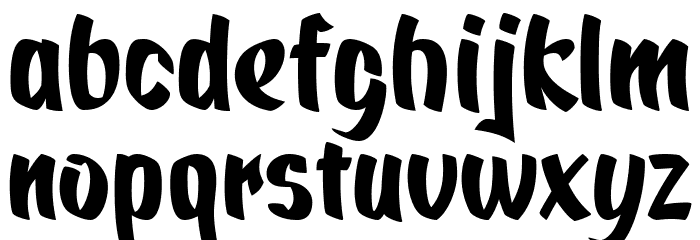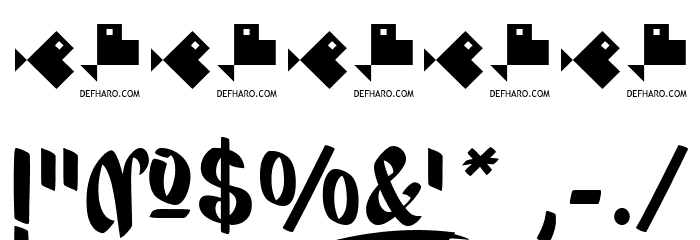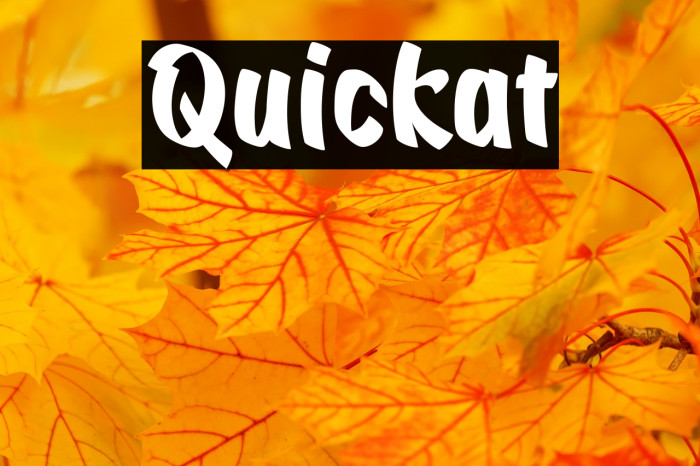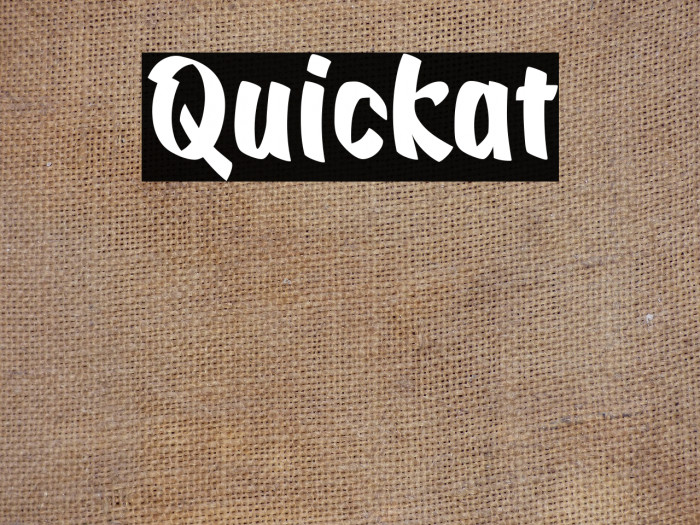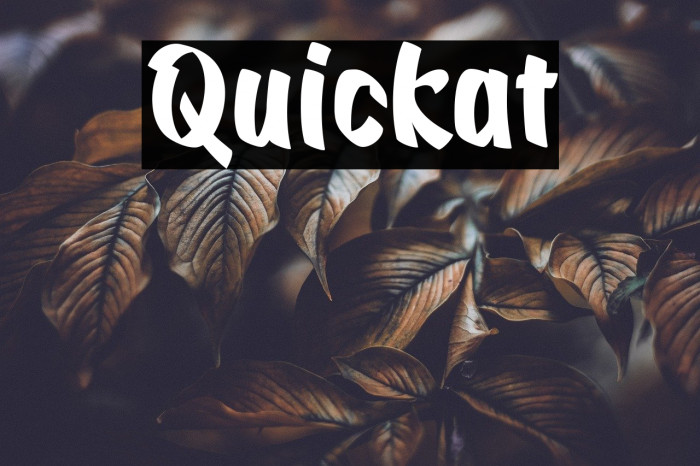
Quickat Font
This font features a bold and dynamic style with a strong presence. The uppercase letters exhibit a unique flair with exaggerated curves and sharp edges, creating a sense of movement and energy. The lowercase letters maintain this dynamic quality, with a slightly more rounded appearance that complements the uppercase. The numbers are bold and consistent with the overall style, ensuring readability while maintaining the font's distinctive character. Special characters are creatively designed, adding to the font's playful and artistic nature. This font is ideal for projects that require a bold statement and a touch of creativity.
A bold, dynamic font with exaggerated curves and sharp edges, perfect for creative projects.
- Proposed Projects: Ideal for branding, posters, headlines, and any design that requires a bold and artistic touch.